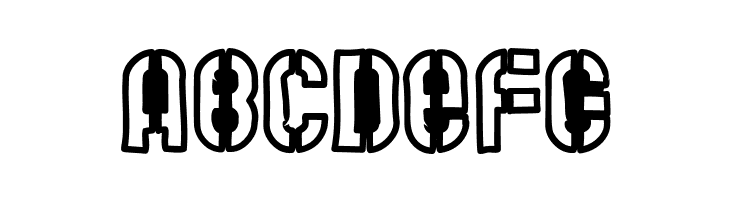
Back To Nature-Inverse Font
- Font: Back To Nature-Inverse
( Fonts by Cumberland Fontworks - http://www222.pair.com/sjohn/fonts.htm - S. John Ross )
A playful, hand-drawn font with irregular, wavy strokes and a whimsical style.